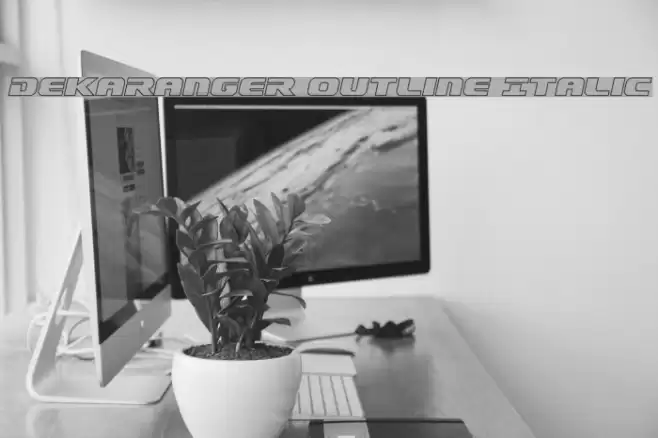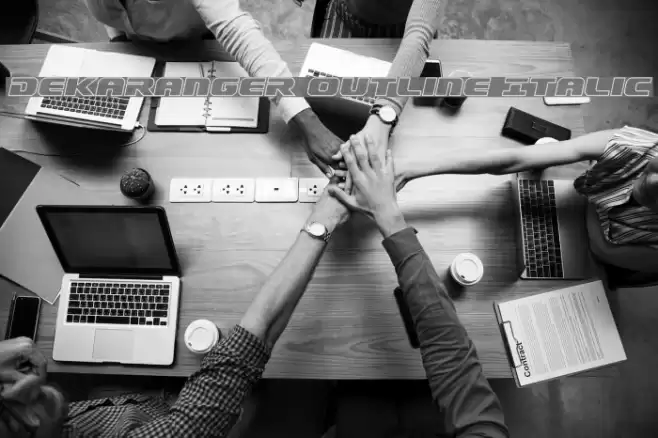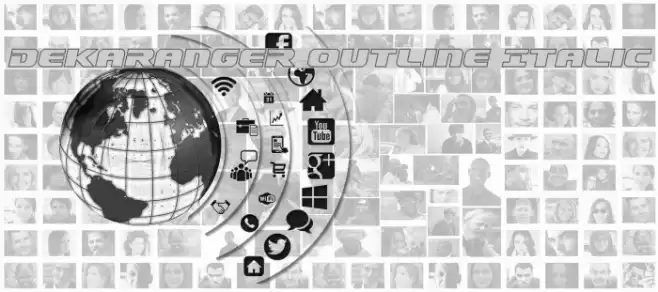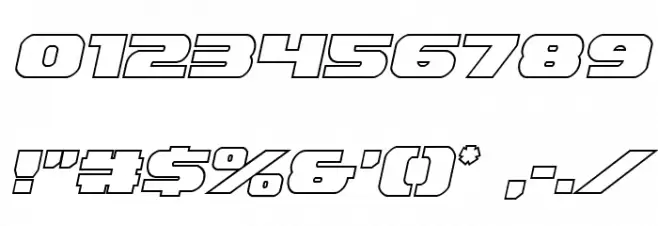
Dekaranger Outline Italic Font
Dekaranger Outline Italic Description
This font features a bold, futuristic design with an outline style that gives it a distinctive, modern look. The characters are italicized, adding a dynamic and forward-leaning appearance. Each letter is crafted with precision, maintaining a consistent width and height, which contributes to its uniformity and readability. The uppercase and lowercase letters share a similar style, ensuring cohesion across different text cases. The numerals and special characters are designed to match the overall aesthetic, making this font versatile for various applications. Its geometric shapes and clean lines make it suitable for projects that require a contemporary and tech-inspired feel.
A bold, italicized outline font with a futuristic and modern design from Uncategorized fonts.
- Proposed Projects: Ideal for sci-fi themed projects, tech branding, video game titles, and futuristic posters.